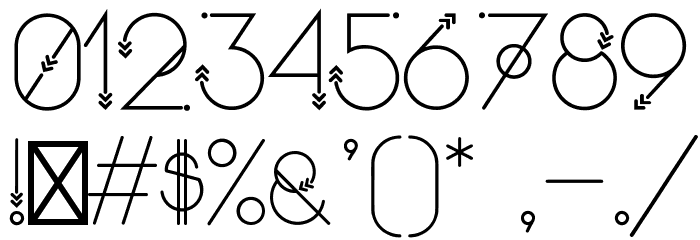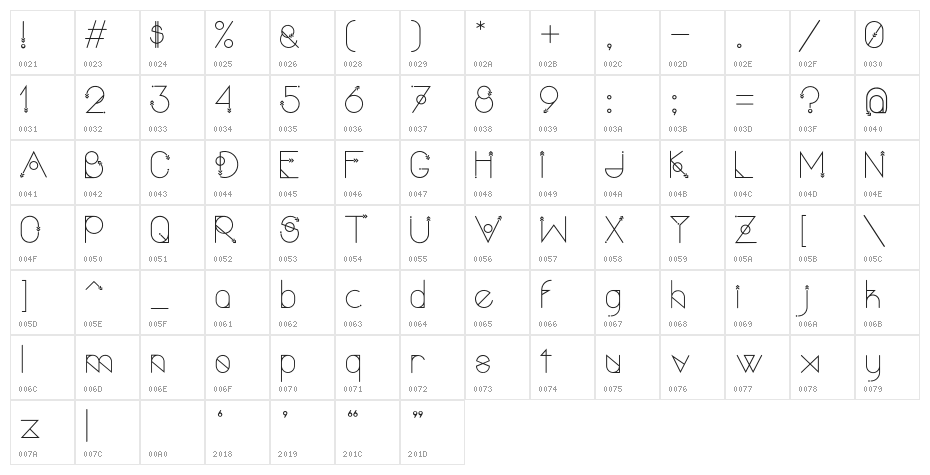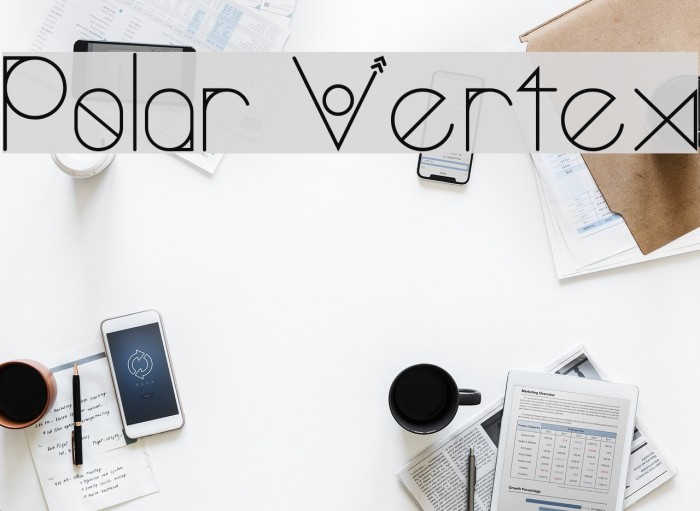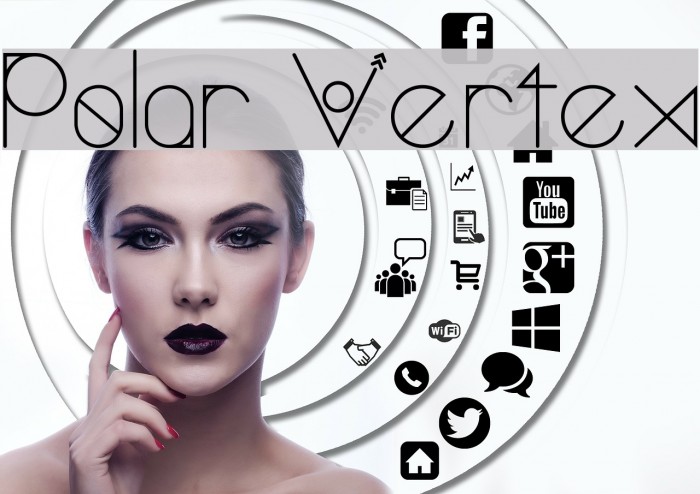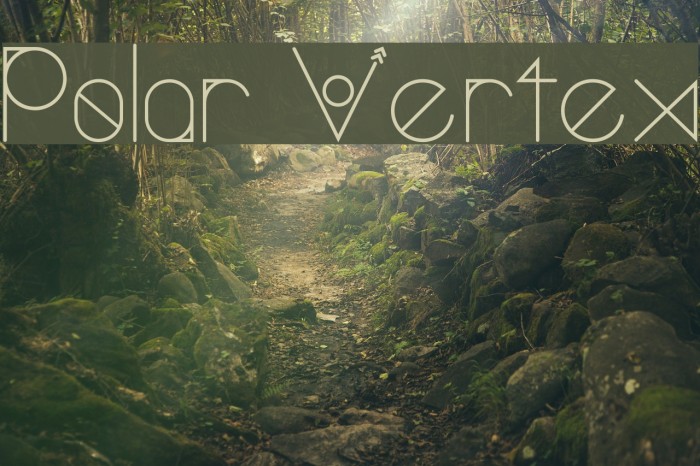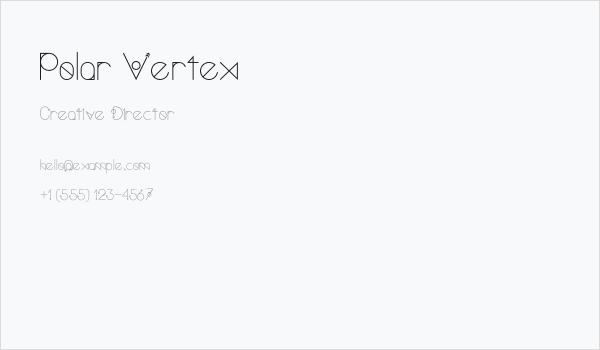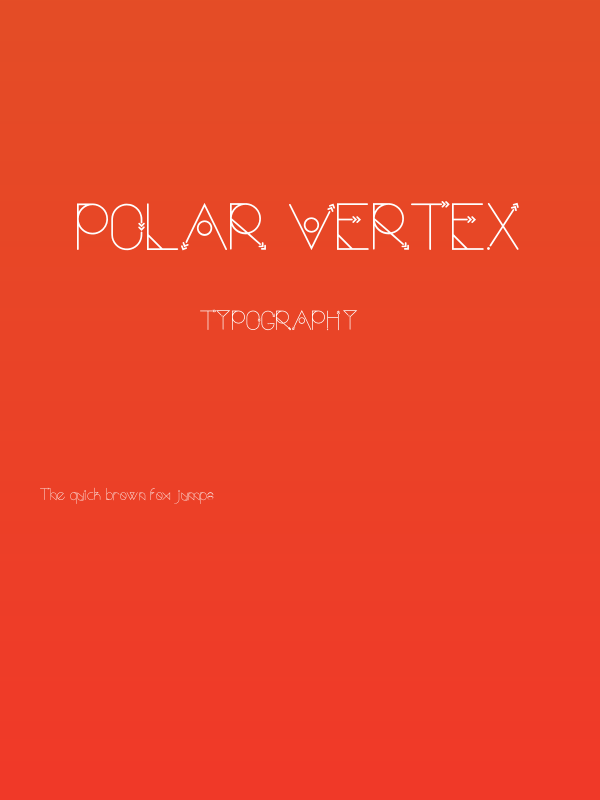
Polar Vertex Font
Polar Vertex Description
This font features a unique and modern design with geometric elements and arrow-like accents integrated into each character. The uppercase and lowercase letters maintain a consistent style, characterized by clean lines and sharp angles. The numerals and special characters also follow this distinct geometric pattern, making the font highly decorative. The overall appearance is futuristic and innovative, suitable for creative and bold design projects. The spacing between characters is normal, allowing for clear readability despite the intricate design details.
| Proposed Projects | Ideal for futuristic branding, tech-related designs, posters, and creative digital art. |